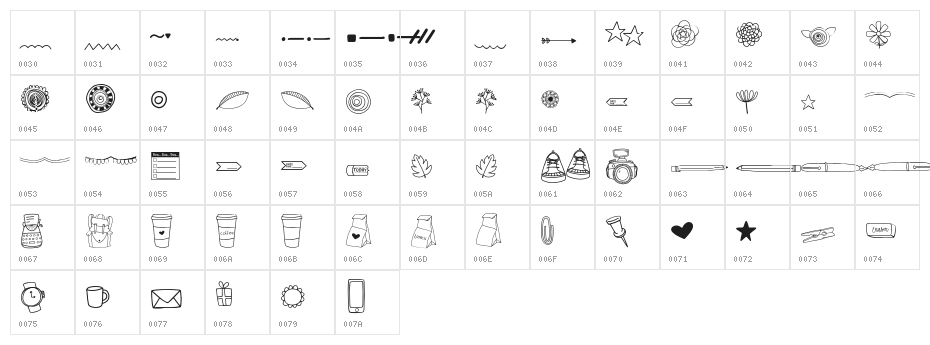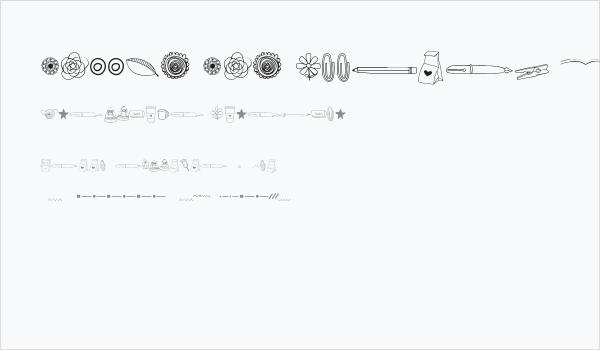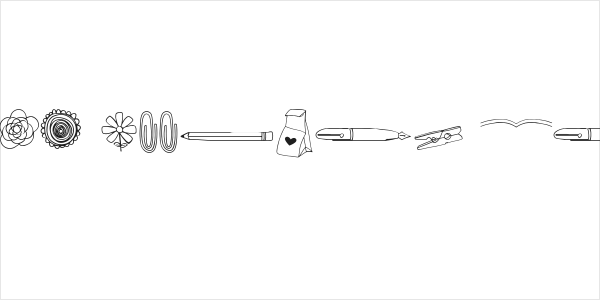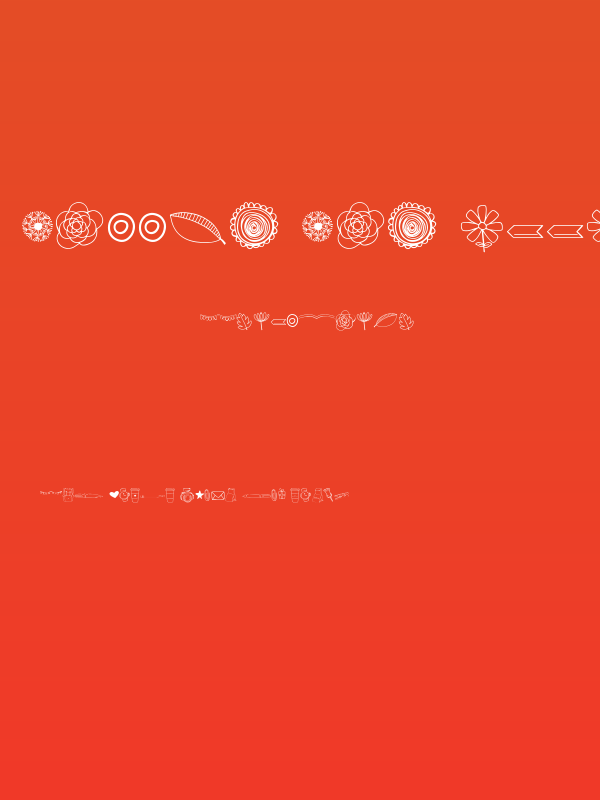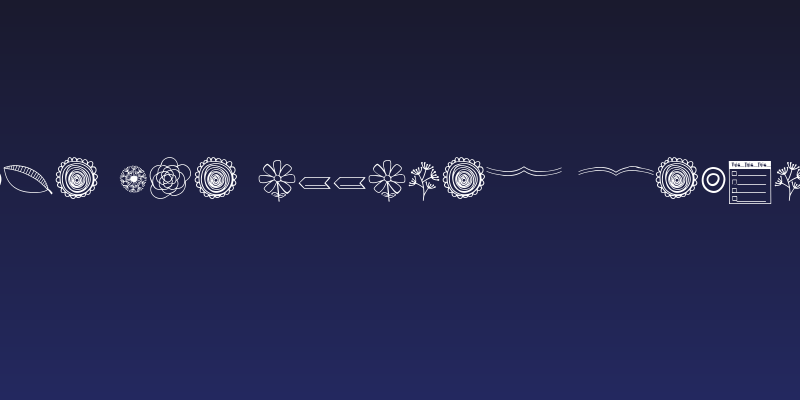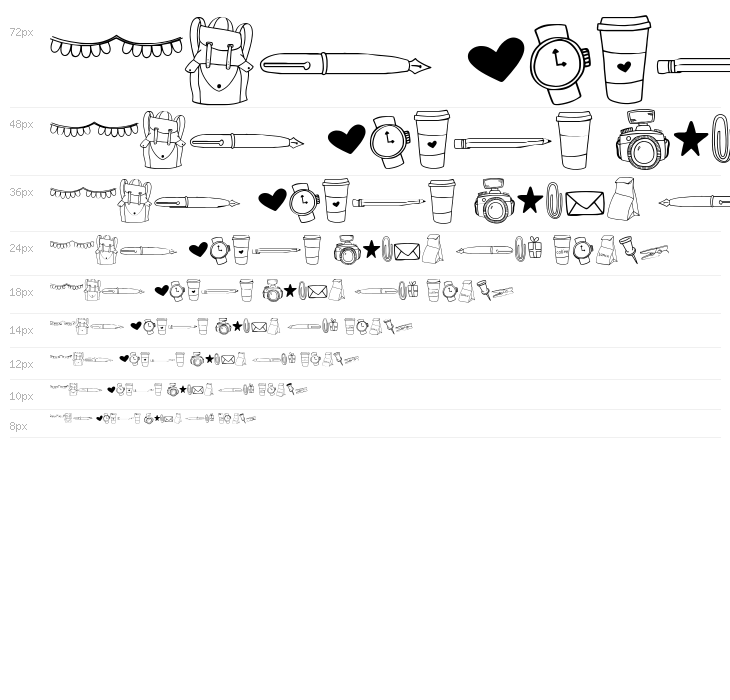
MAGGIE MAE Doodles Regular Font
MAGGIE MAE Doodles Regular Description
A playful, hand-drawn dingbat font featuring whimsical illustrations such as flowers, leaves, arrows, stationery, coffee cups, stars, and decorative dividers. The lines are organic and varied, giving a casual, doodle-like appearance.
| Overall Style | Decorative, Playful, Hand-drawn |
| Use Case | Icons, Decorative elements, Dividers, Embellishments |
| Proposed Projects | Planner stickers, scrapbooking, bullet journals, classroom materials, greeting cards, creative social media graphics. |